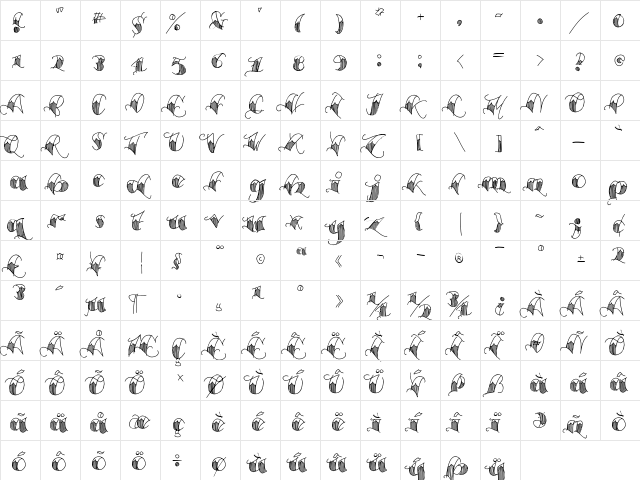
Espesor Olas Half Regular
Design Context for Espesor Olas Half Typeface
Espesor Olas Half is a composed and adaptable typeface that performs quietly and consistently across a wide range of design contexts.